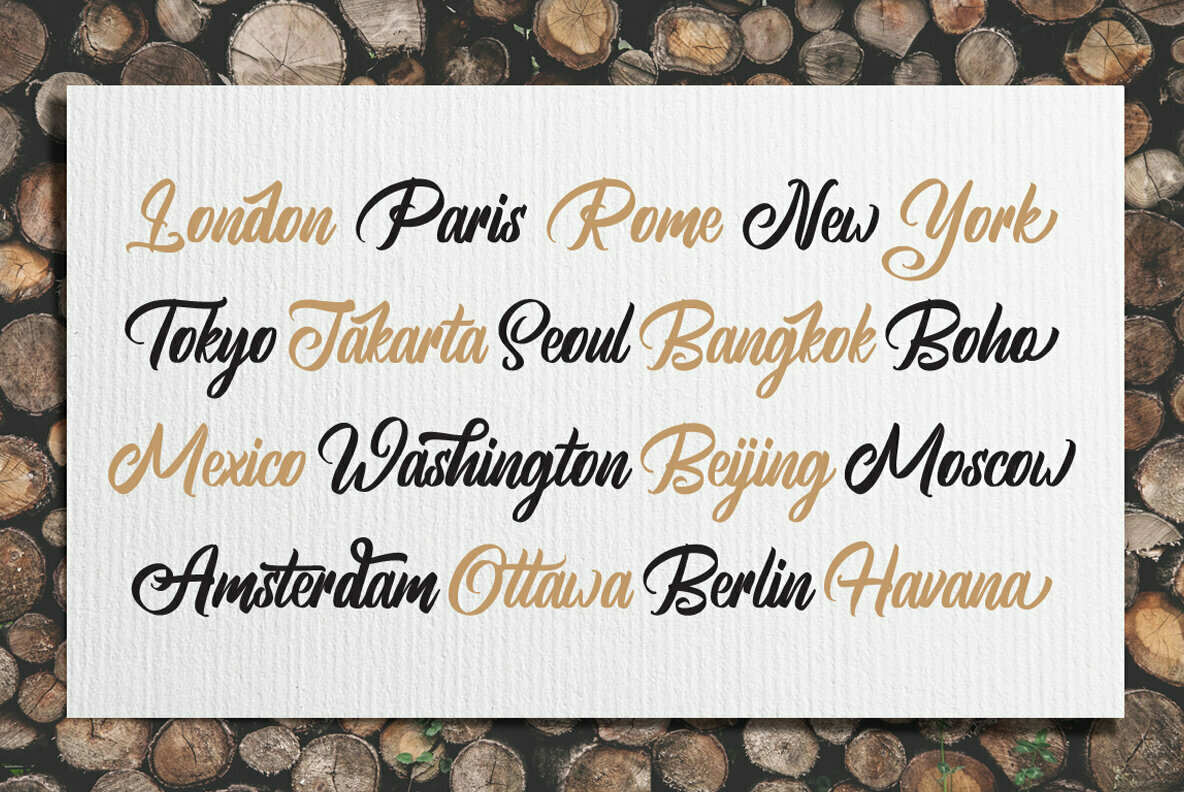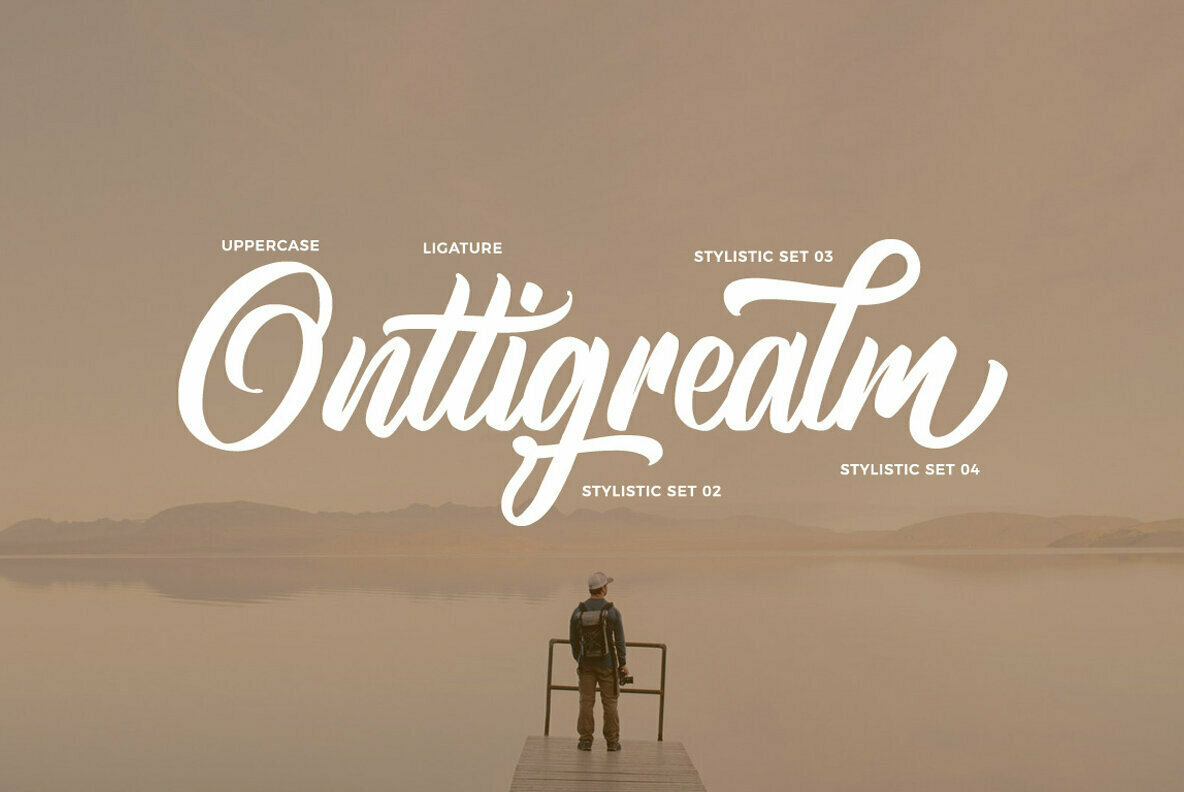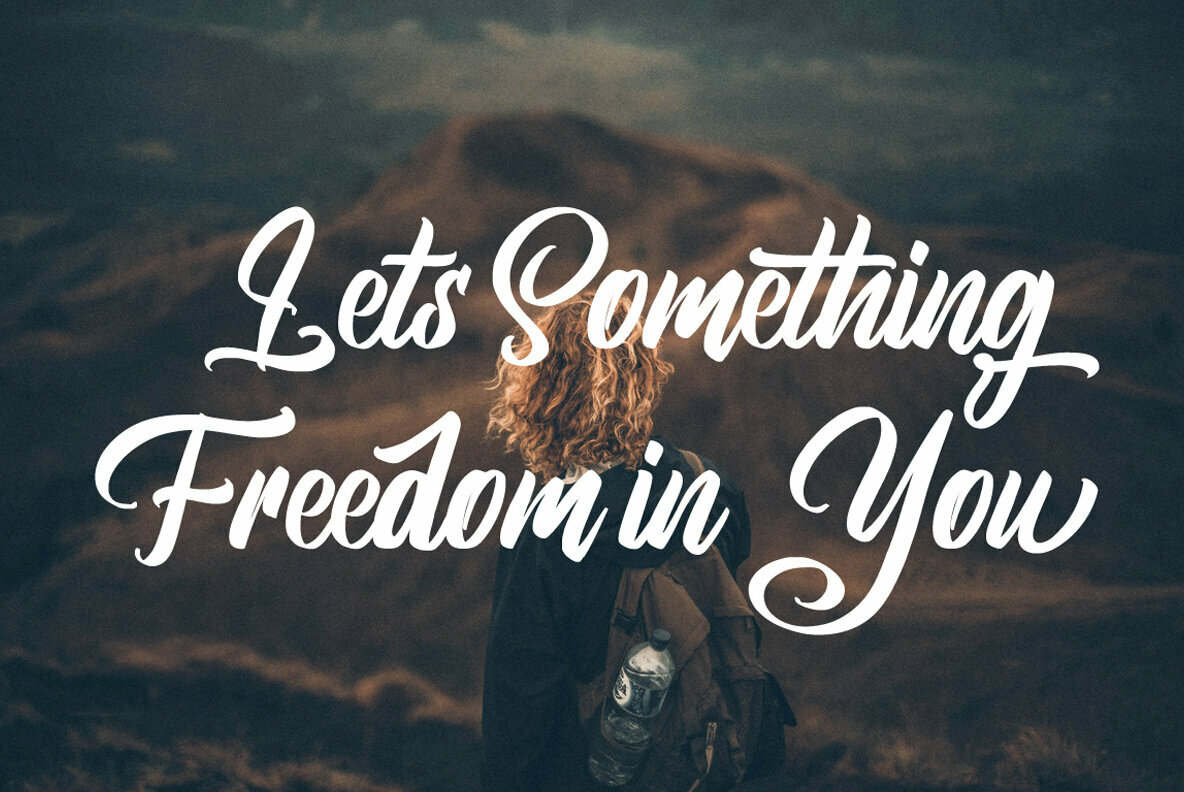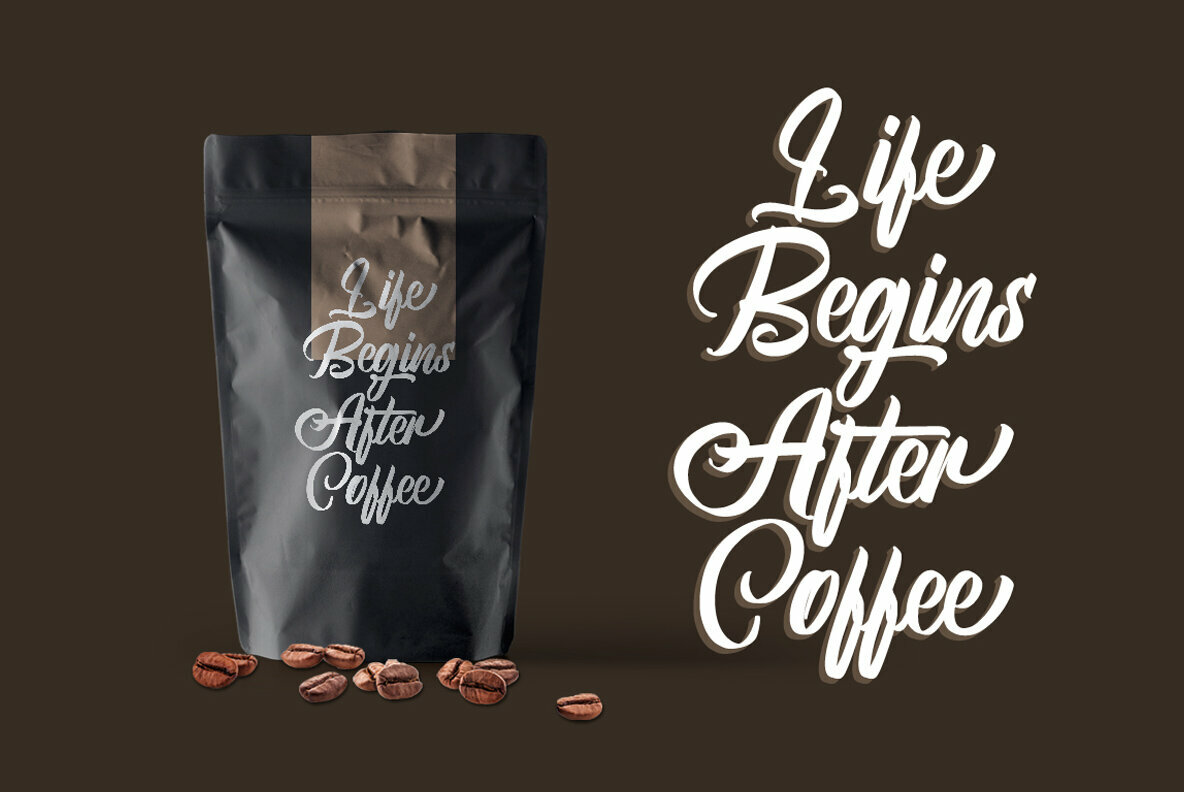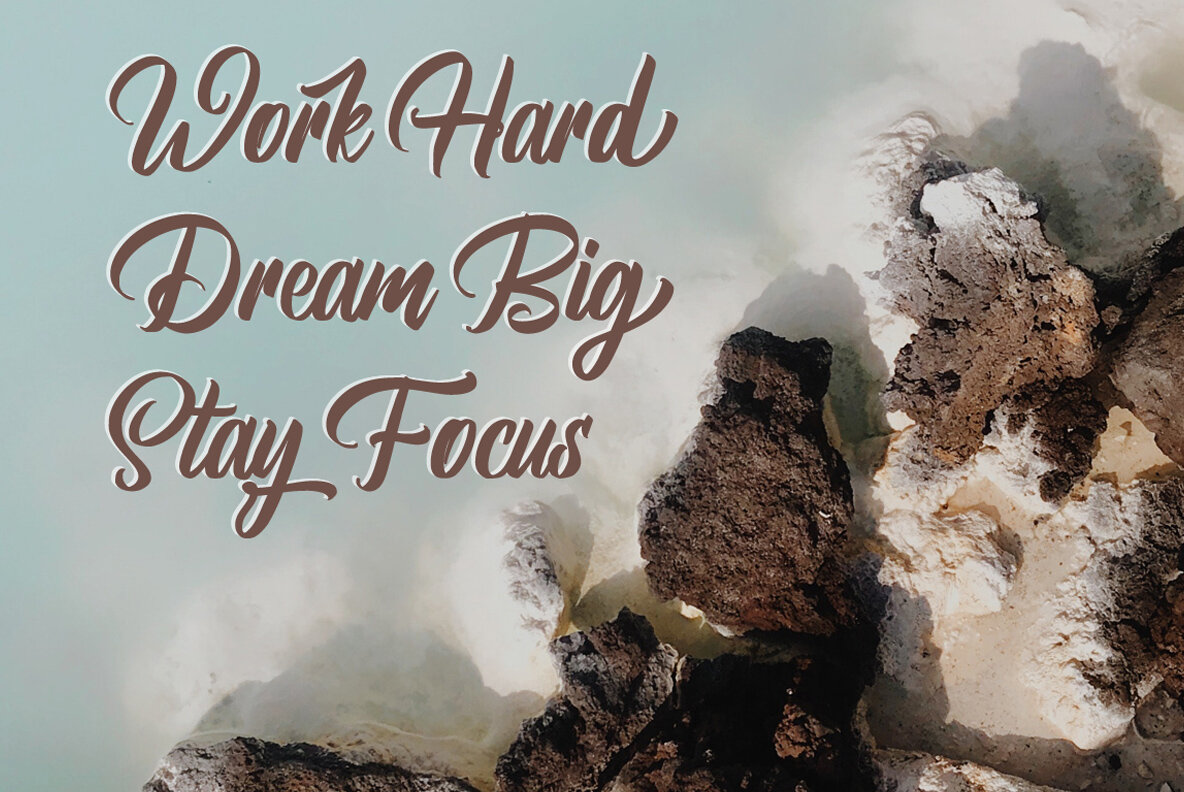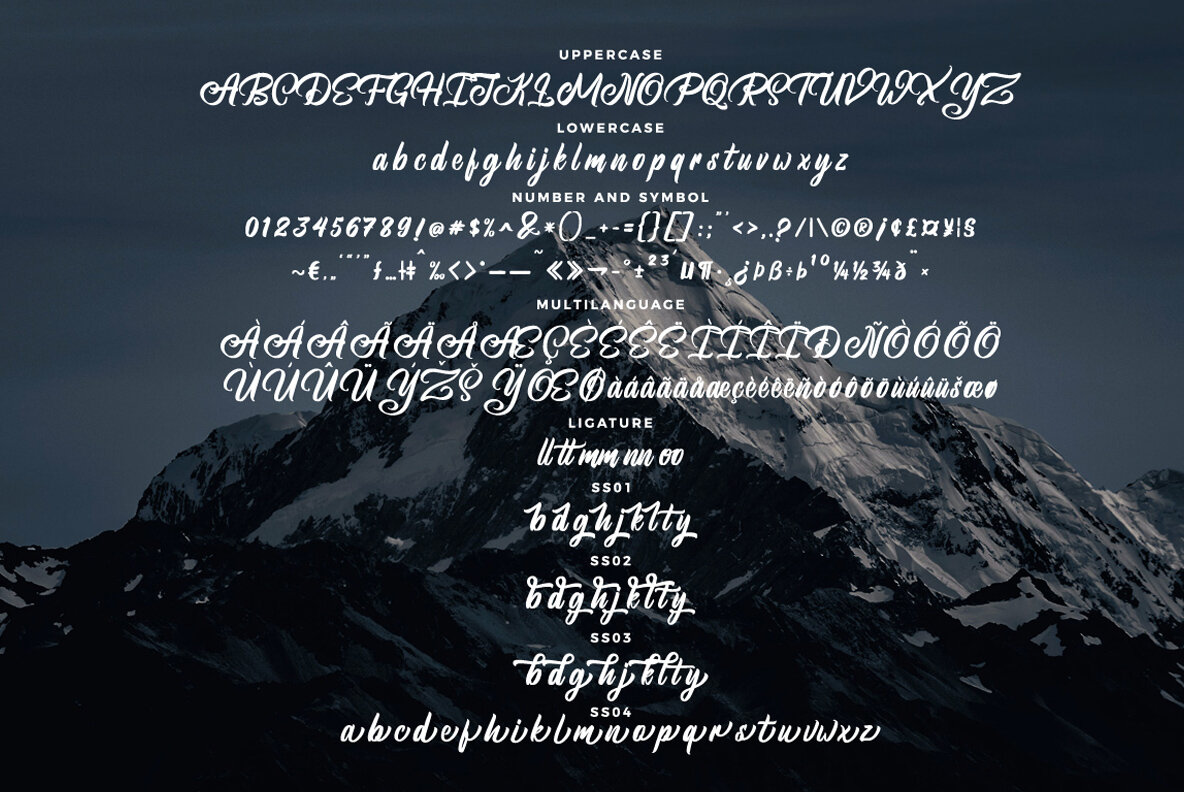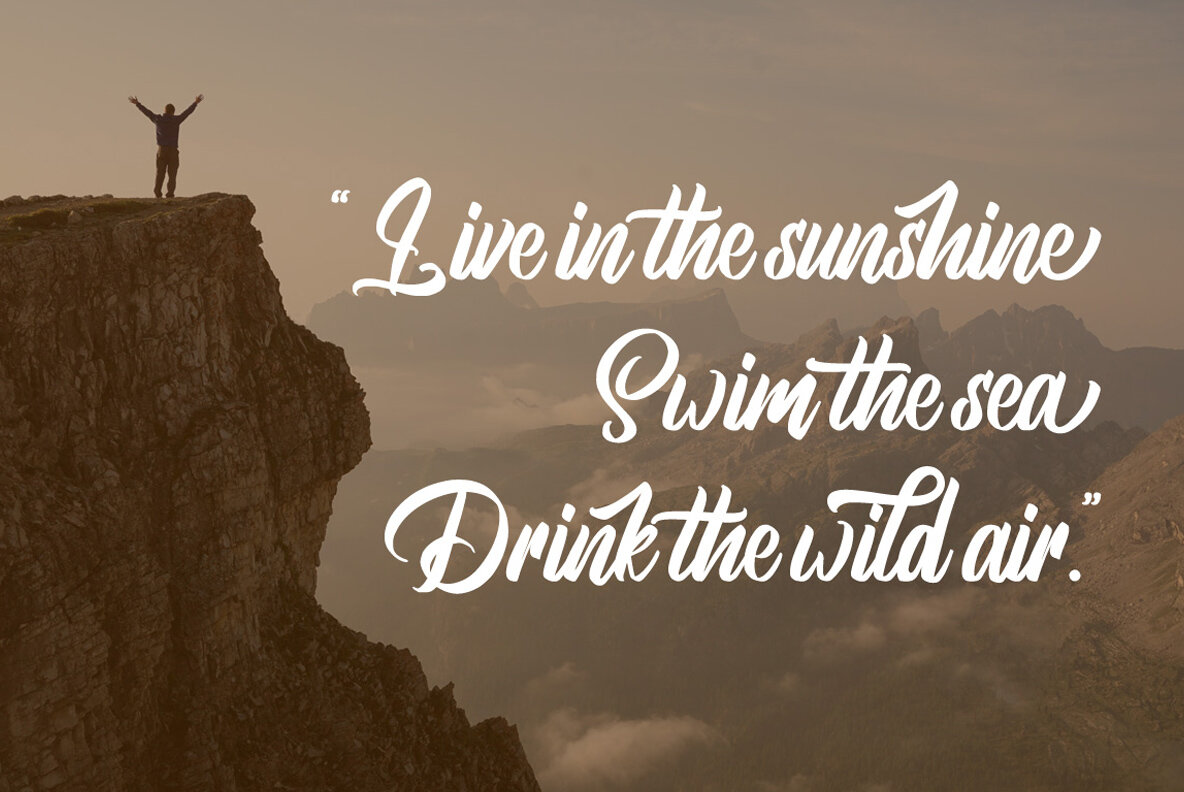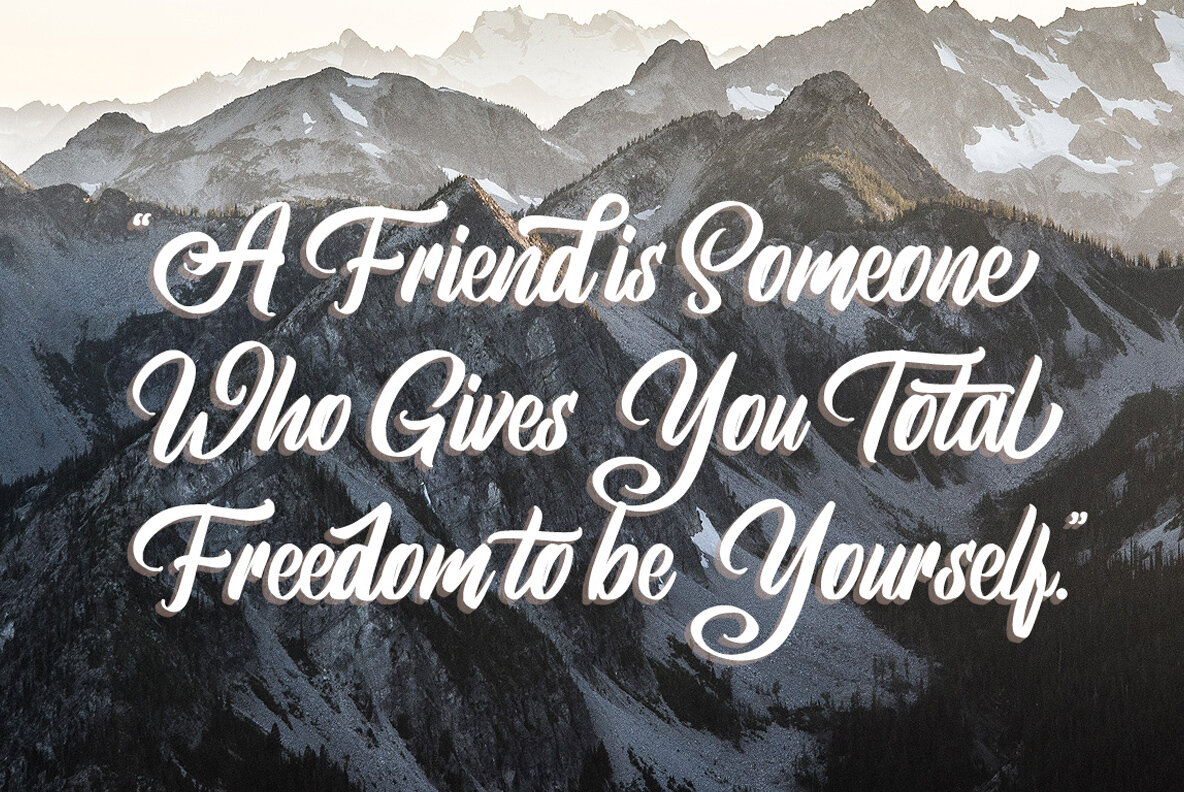
Brightsome Font
Brightsome
Brightsome offers a distinctive hand-lettered brush style that infuses a personal touch into your creative projects. Designed by Ferry Hadriyan, this script font seamlessly integrates with various design needs, from wedding invitations and event materials to apparel and branding.Brightsome: A Brush-Style Script Font
Brightsome's engaging and versatile design makes it a valuable addition to any designer's toolkit, elevating your work with a touch of elegance and personality.